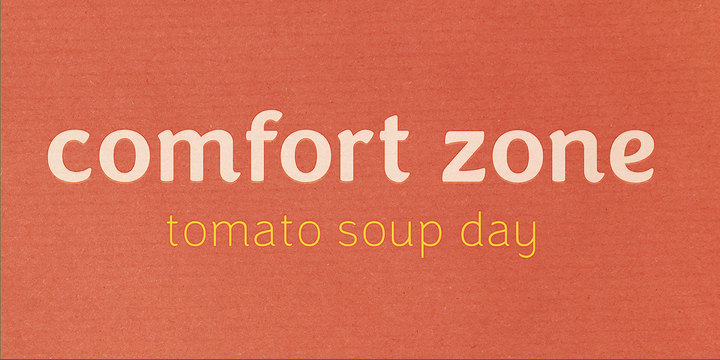
congenial
Congenial font is a sans-serif typeface built as understated, highly legible complement to Laura Worthington. Congenial retains some hand-drawn elements, visible particularly in the heavier weights . At lighter weights the strokes become almost monoline.